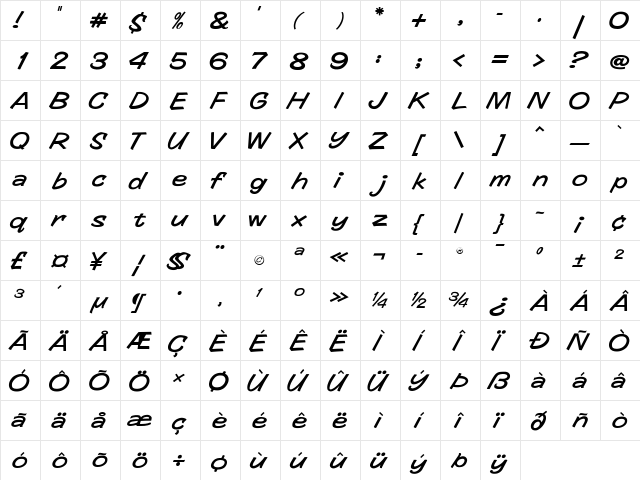
Sale Light Italic
Sale takes a measured approach to typography — its balanced proportions and neutral character make it a reliable workhorse for both digital and print work. The dynamic lean of this cut emphasises speed and emphasis in any layout. The delicate stroke weight brings airiness and refinement to layouts.
Pro Tip: Use Sale for emphasis, pull quotes, and subheadings where its slanted energy can add rhythm to the layout.